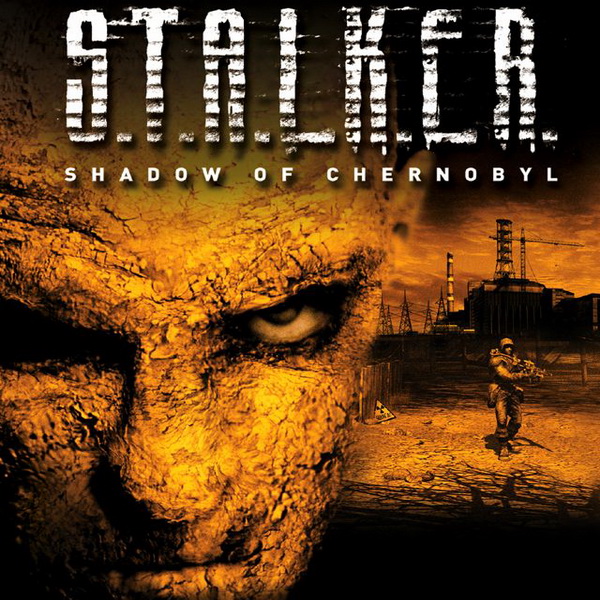
Stalker Font
Fonts in UseS.T.A.L.K.E.R.: Shadow of Chernobyl is a Ukrainian-developed first-person shooter set in a post-apocalyptic Chernobyl Exclusion Zone, where players explore dangerous anomalies, face mutated creatures, and uncover the mysteries of the Zone as a Stalker.
The video game's logo features a gritty and distorted design, using a font similar to Amaz Stalker by Amazingmax. The font, available in uppercase letters only, can be downloaded for free from the Fonts Used Section.